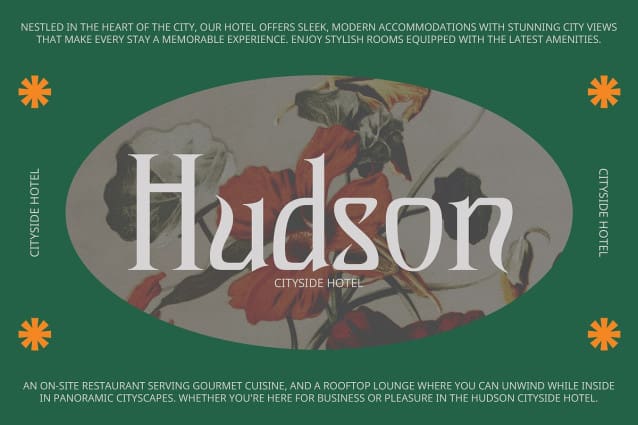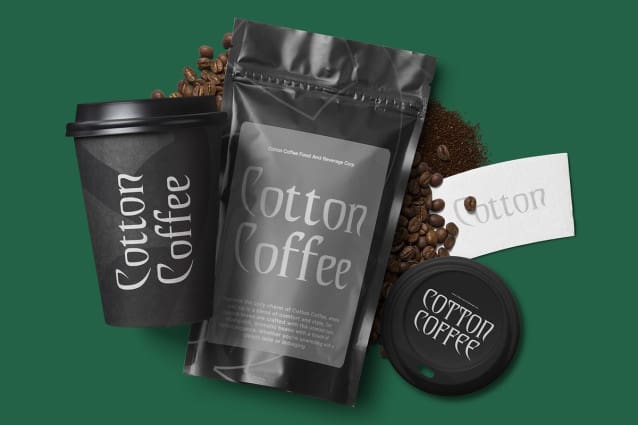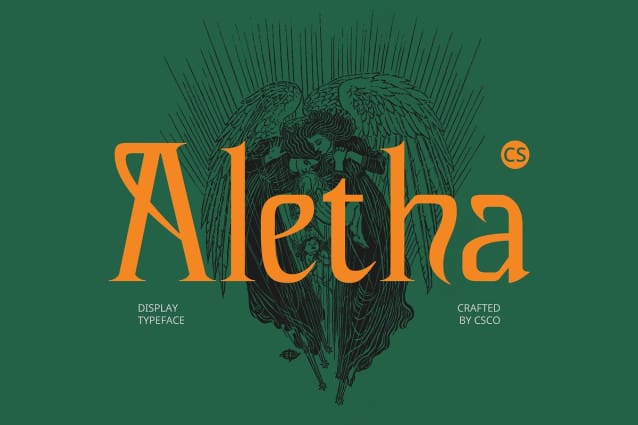
CS Aletha Font
CS Aletha Font is a modern display serif font that features distinctive L and T shapes with inwardly curved, pointed ends. This unique design element combines modern aesthetics with classic charm, creating a sophisticated and elegant look.
Perfect for Sophisticated Branding and Editorial Design Ideal for sophisticated branding, editorial design, and elegant invitations, CS Aletha adds a touch of refinement to any project. Its sharp serifs and unique letterforms ensure a striking and memorable visual impact.
Refined, Timeless Quality The unique, sharp serifs of CS Aletha add a refined, timeless quality to your projects. This blend of classic and modern design ensures that your work stands out with elegance and sophistication.
Enhances Visual Appeal Whether for high-end branding or elegant editorial layouts, CS Aletha enhances the visual appeal of your designs. Its distinctive and refined characteristics make it perfect for projects aiming to convey a sense of timeless beauty and modern sophistication.
Ideal for Elegant Invitations and More CS Aletha is perfect for creating elegant invitations, sophisticated branding, and stylish editorial designs. Its classic yet modern design elements provide a unique and polished appearance, ensuring your projects make a lasting impression.